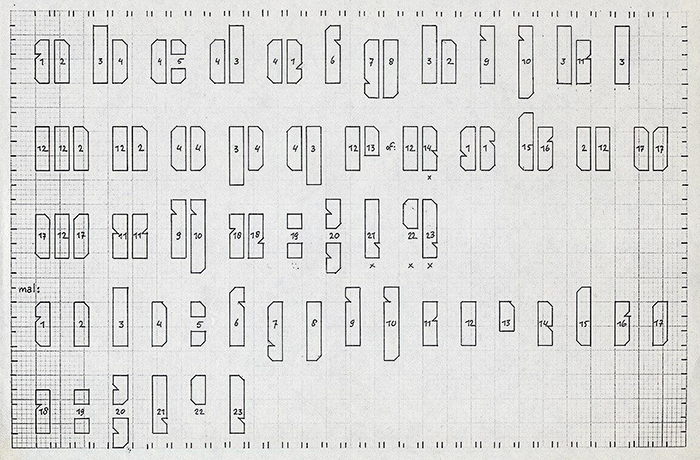
• Another recap in the ever growing series of attempts to re-create some of the works from late great dutch graphic designer "Jurriaan Schrofer" (15 april 1926 – 1 juli 1990).
This time I revisited the letters taken from one of his sketches called "Alphabet for cutout letters-c. 1985" and completed it with numerals and some additional punctuations!
The only real differences compared to the original sketch are heavier stroke weight and some letter parts/shapes that were drawn in the original were left out from the recap since they are of no use in a typeface!
As usual I completed the alphabet with numerals and some additional punctuations.
Lowercase characters only!!
Original sketch as was designed by Jurriaan Schrofer.